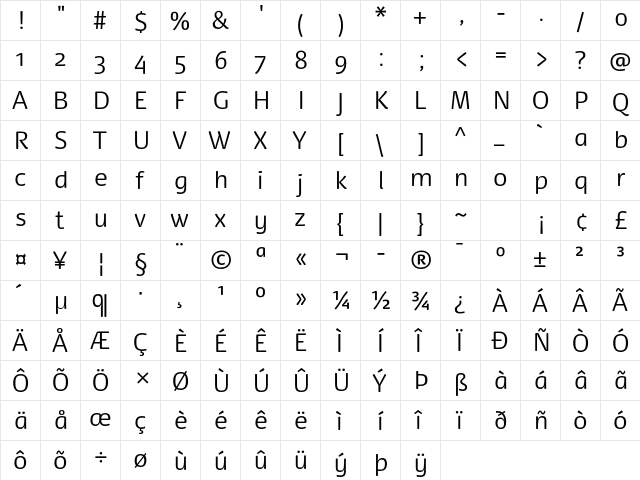
Dancer Pro Light
| Foundry | Morten Rostgaard Olsen |
| Designer | Morten Rostgaard Olsen |
Design Context for Dancer Pro Typeface
Dancer Pro is a composed and adaptable typeface that performs quietly and consistently across a wide range of design contexts. The delicate stroke weight brings airiness and refinement to layouts.